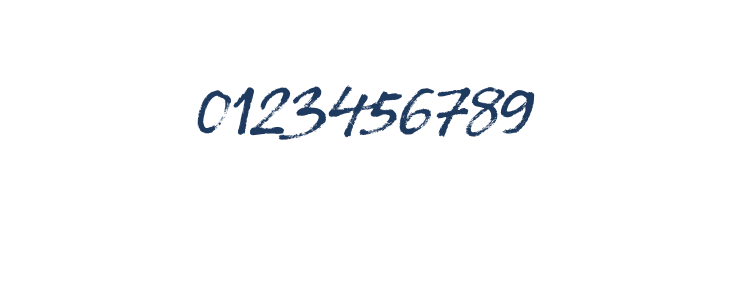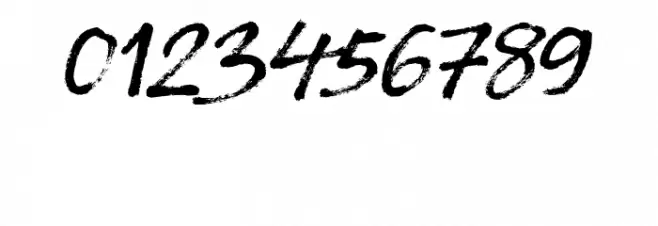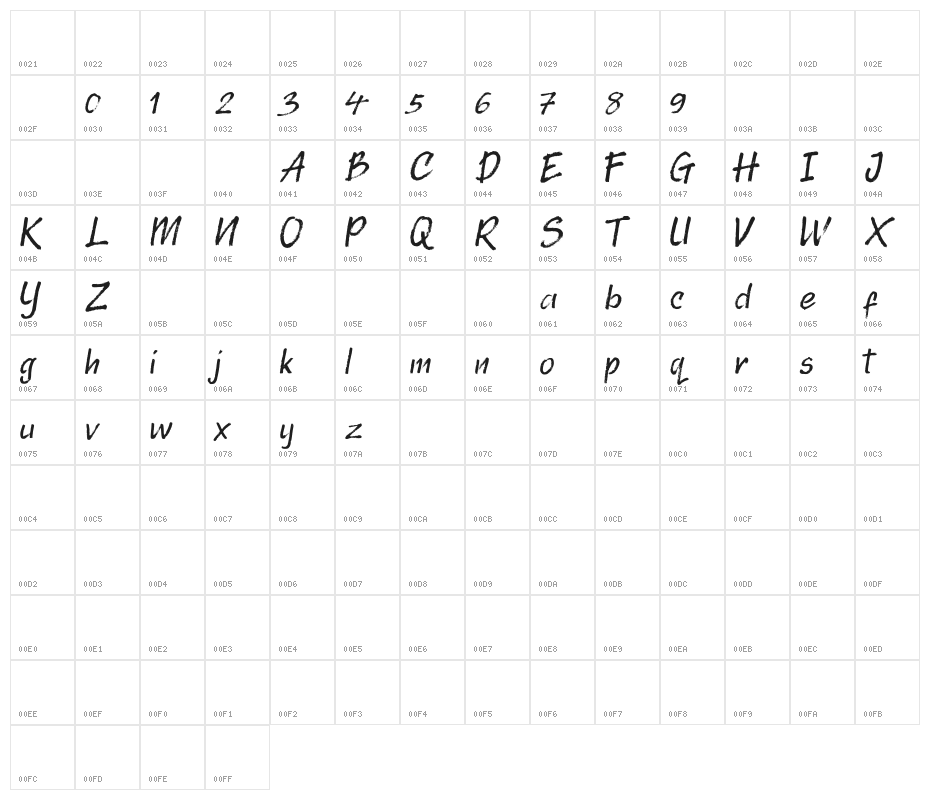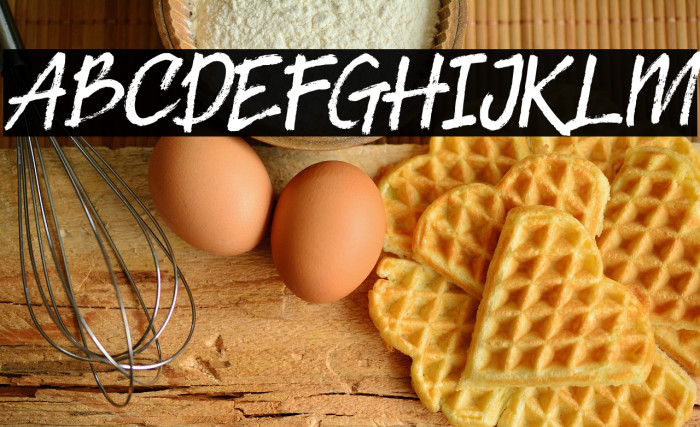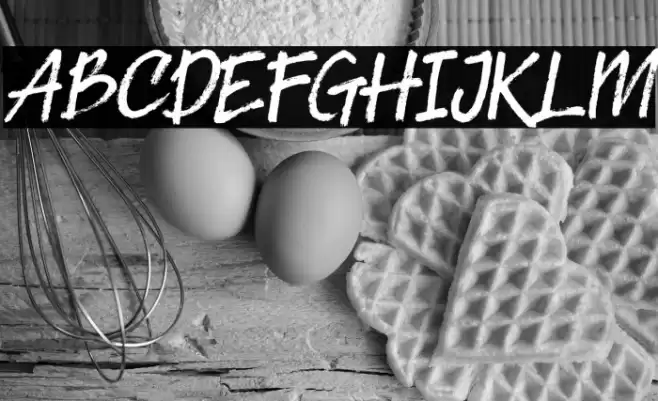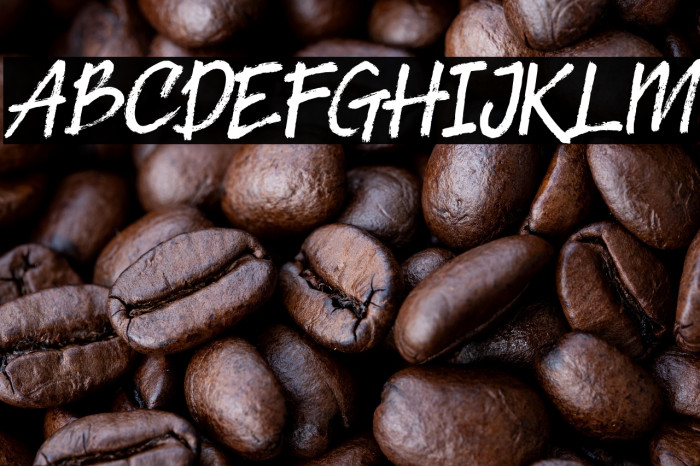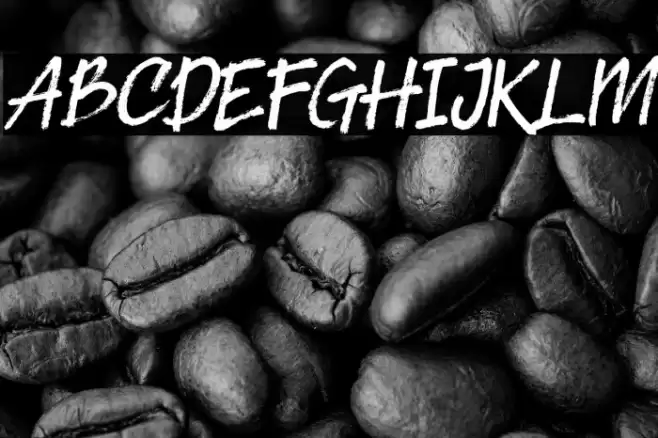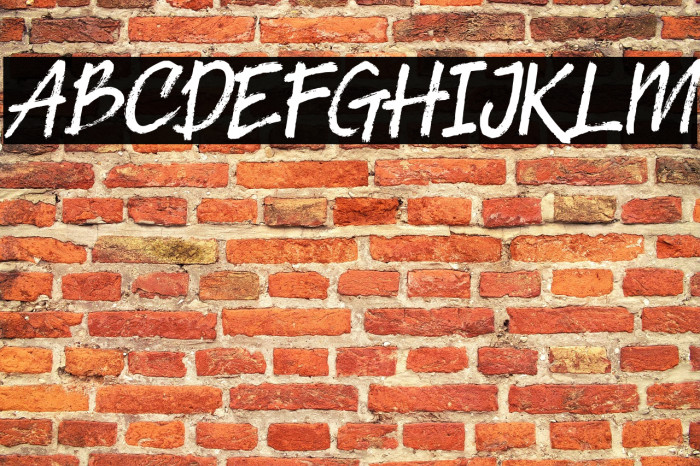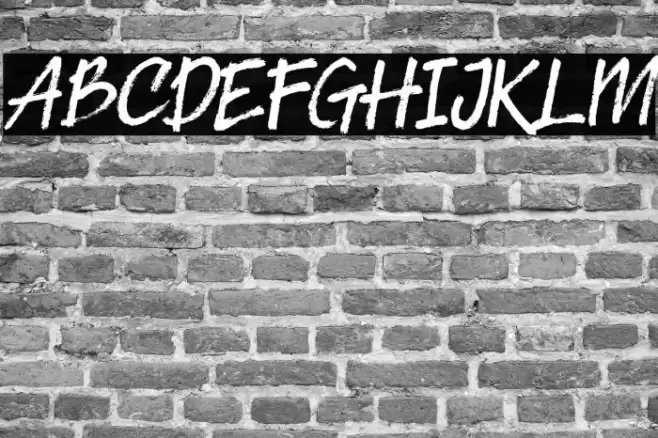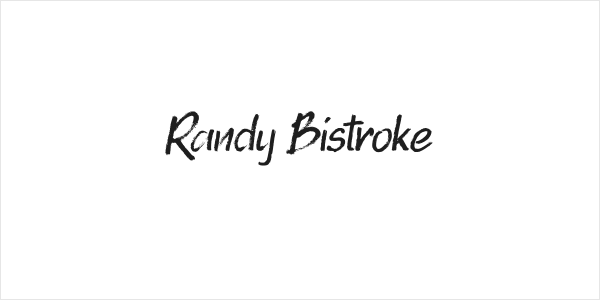
Randy Bistroke Font
Randy Bistroke Description
This font exudes a bold and dynamic energy, characterized by its brush-like strokes that give it a hand-painted appearance. The letters are slightly slanted, adding a sense of movement and fluidity. The texture of the strokes varies, with some areas appearing more solid while others have a rough, textured finish, reminiscent of a dry brush technique. This creates a lively and artistic feel, making it ideal for projects that require a personal and creative touch. The uppercase and lowercase letters maintain a consistent style, with the uppercase being slightly larger and more pronounced. Numbers and special characters are also included, following the same stylistic approach.
| Proposed Projects | Ideal for artistic projects, branding, posters, and creative advertisements. |